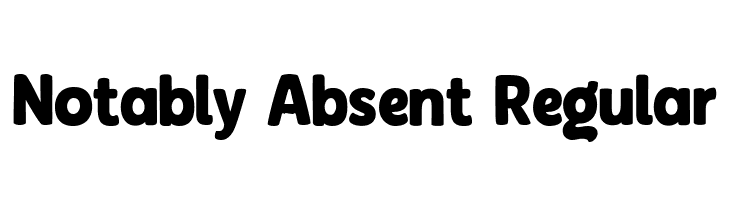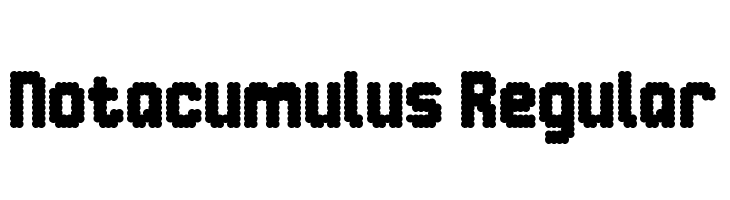
• Not the middle east الخطوط
A bold, rounded, and interconnected font with a modern, digital aesthetic.
• Not Tuned TV الخطوط
A playful, hand-drawn font with a sketch-like texture and bold, rounded characters.
• Not Tuned TV الخطوط
A bold, hand-drawn font with a sketchy, textured appearance.
• Notable Regular الخطوط
A bold, impactful font with strong, thick strokes and a commanding presence.
• Notably Absent Regular الخطوط
A bold, rounded font with smooth curves and a modern, approachable style.
• Notacumulus Regular الخطوط
A playful, cloud-like font with bold, rounded characters.
• Notalistic الخطوط
An elegant, flowing script font with whimsical loops and dynamic forms.
• Notalistic الخطوط
A whimsical and artistic script font with flowing, interconnected letters and playful loops.
• Notalkingplease-Regular الخطوط
• Notalot18 Regular الخطوط
A pixelated, blocky font with a retro digital aesthetic.